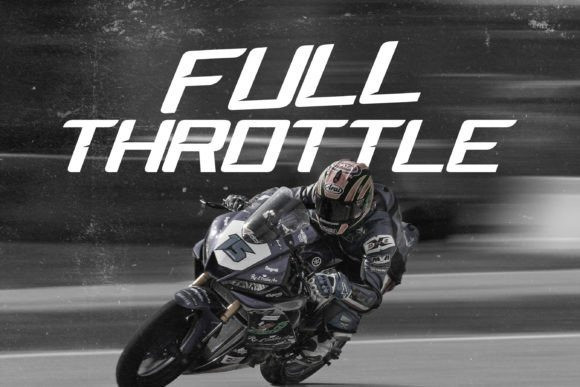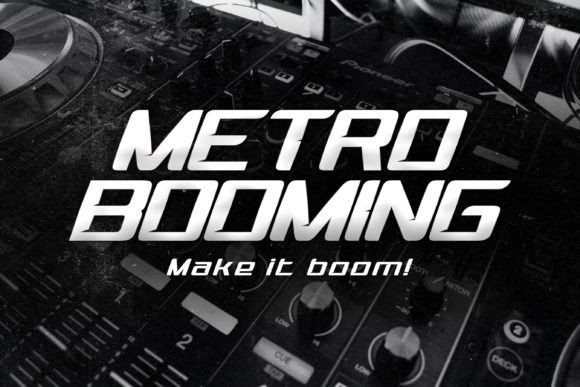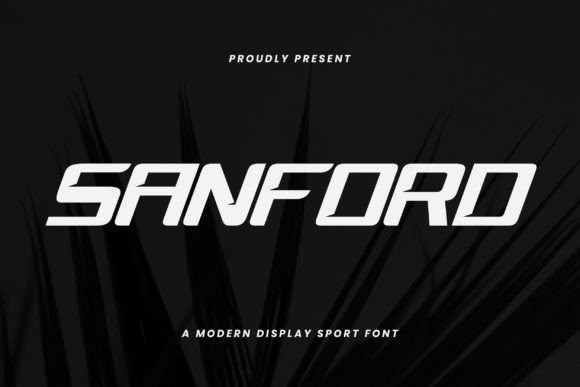
Sanford Font
Sanford Font – A Modern Display Sport Font. Sanford is the ultimate choice for designers seeking a bold and contemporary display font to make a lasting impact. Inspired by the dynamic energy of sports, this font exudes power, strength, and a sense of movement, making it the perfect addition to any sports-related project or design that demands attention.